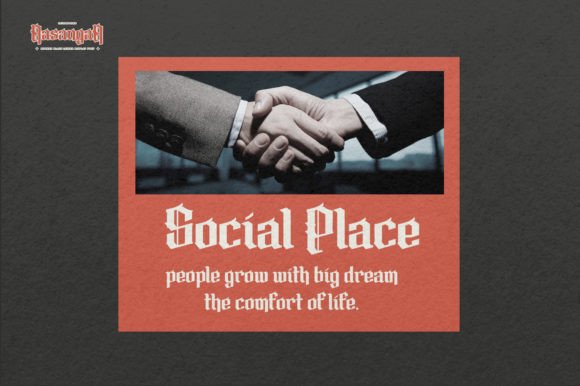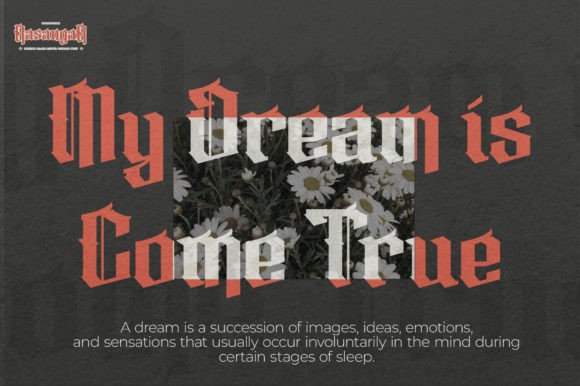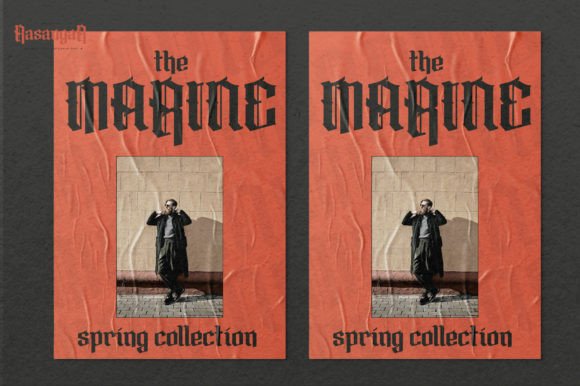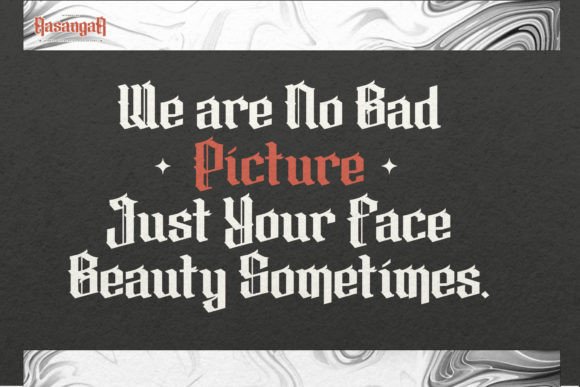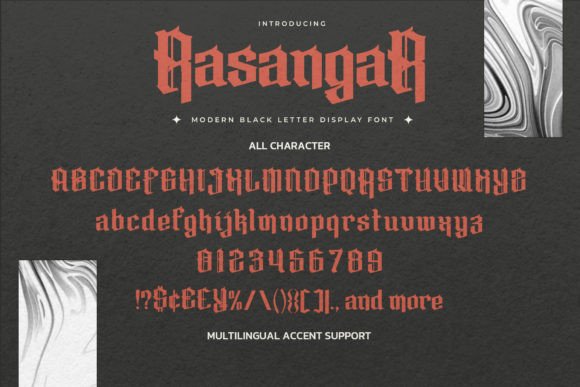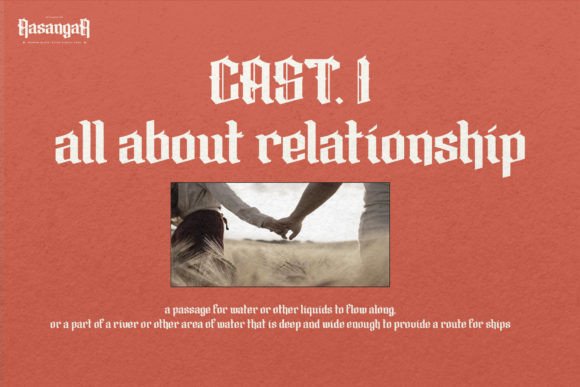
Introduction to Rasangar Font
Have you ever been working on a creative project and stumbled upon that perfect font that takes your design to the next level? For many designers, that moment is a game-changer. It’s the difference between a good design and a great one. And, for those who are looking to add some drama and flair to their work, we’re excited to introduce you to the Rasangar Font.
This bold and thick lettered blackletter font is the perfect addition to any design project. With its high-quality aesthetic, it’s sure to elevate your work and make it stand out. Plus, with PUA encoding, you can easily access all of the glyphs and swashes, giving you complete control over your design. Whether you’re working on a project that requires a transparent background or just need a reliable design resource, the Rasangar Font is a valuable tool to have in your arsenal.
Key Features of Rasangar Font
- Includes a range of font styles, from bold and italic to regular and condensed, providing versatility for designers.
- Perfect for use in creative projects, such as branding, graphic design, and digital art, where a unique and eye-catching font is required.
Honest Review: Rasangar Font
I recently had the chance to try out the Rasangar Font, and I must say it’s been a great addition to my design resource library. One of the standout features of this font is its versatility – it’s perfect for both modern and traditional creative projects. ✨
That being said, I do have a few limitations to note:
- ⚠️ Limited character set – some users may find it restrictive for certain projects
- ⚠️ Not ideal for text-heavy designs, as the font can be quite ornate
Frequently Asked Questions About Rasangar Font
Does the Rasangar Font have a transparent background?
No, the Rasangar Font is a solid font, not a vector graphic with a transparent background. However, its high quality design makes it an excellent choice for creative projects where a beautiful, high-contrast font is required.
Creative Projects with Rasangar Font
Project 1: Modern Logo Design
Create a professional logo design using the Rasangar Font. This font features unique and creative characters that will give your logo a modern and unique look.
Project 2: Creative Poster Design
Create a visually appealing poster design using the Rasangar Font. This font features unique and creative characters that will give your poster a creative and eye-catching look.